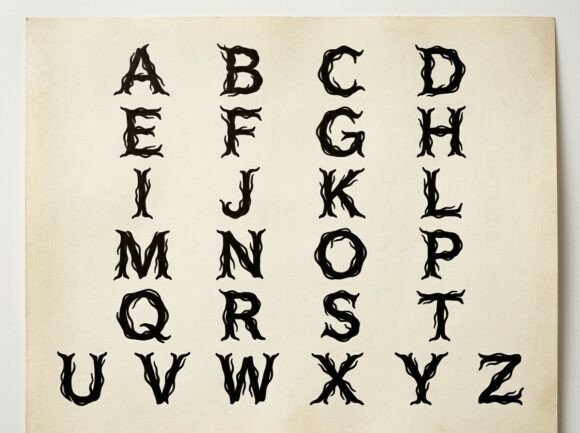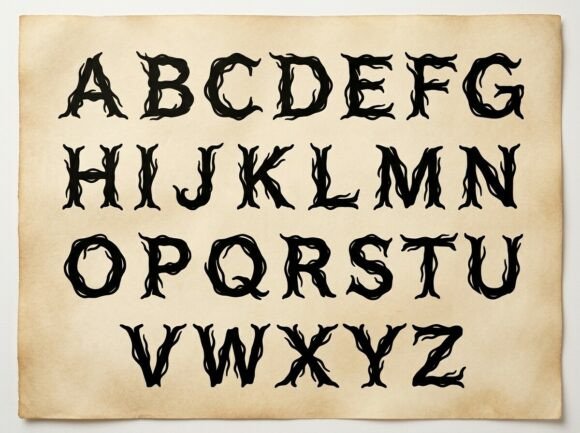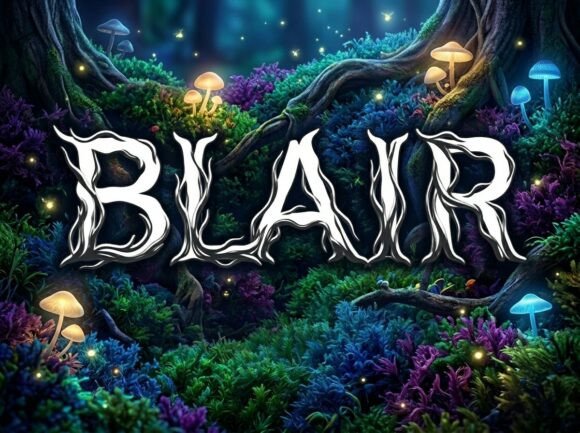
Blair Font: A Stunning Decorative Display Font for Creators
Are you tired of using the same old fonts for your designs? Look no further than the Blair Font, a stunning decorative display font that’s sure to turn heads. With its unique artistic elements and strong visual personality, this font is perfect for creators who want to break away from the ordinary and make a statement.
What is Blair Font?
Blair Font is a decorative display font designed to be the center of attention. Its unique artistic elements and strong visual personality make it perfect for bold headlines, artistic logos, and creative packaging. This font is versatile enough to be used in a variety of design projects, while maintaining a professional and polished finish.
Key Features of Blair Font
- Unique Artistic Elements: Blair Font features unique artistic elements that set it apart from other fonts. Each letter is carefully crafted to make a statement and add a touch of elegance to your designs.
- Strong Visual Personality: This font has a strong visual personality that’s sure to grab attention. Its bold and eye-catching design makes it perfect for headlines, logos, and other design elements that need to stand out.
- Versatile: Blair Font is versatile enough to be used in a variety of design projects, from bold headlines and artistic logos to creative packaging and more.
- Professional and Polished Finish: Despite its bold and artistic design, Blair Font maintains a professional and polished finish that’s suitable for a wide range of design projects.
IMPORTANT NOTE BEFORE PURCHASE: Blair Font is an ALL-CAPS (Uppercase Only) display typeface. It does not include lowercase letters. It is specifically designed for high-impact headlines, logos, and decorative initials where every letter is a work of art.
Who is Blair Font for?
Blair Font is perfect for:
- Graphic Designers: If you’re a graphic designer looking for a unique and eye-catching font to add to your collection, Blair Font is a great choice.
- Log designers: If you design logos for a living, Blair Font is a great option. Its bold and artistic design makes it perfect for creating eye-catching logos that stand out.
- Crafters: If you’re a crafter who loves to create handmade products, Blair Font is a great choice. Its unique and artistic design makes it perfect for adding a personal touch to your products.
- Marketing and Advertising Professionals: If you work in marketing or advertising, Blair Font is a great option. Its bold and eye-catching design makes it perfect for creating high-impact headlines and advertisements.
- Use Blair Font for headlines: Blair Font is perfect for creating eye-catching headlines that grab attention.
- Experiment with different colors: Blair Font looks great in a variety of colors. Experiment with different colors to find the one that works best for your design.
- Pair Blair Font with other fonts: Blair Font pairs well with other fonts. Experiment with different font combinations to find the one that works best for your design.
Blair Font is a stunning decorative display font that’s perfect for creators who want to break away from the ordinary and make a statement. With its unique artistic elements and strong visual personality, this font is perfect for bold headlines, artistic logos, and creative packaging. Whether you’re a graphic designer, log designer, crafter, or marketing and advertising professional, Blair Font is a great choice.